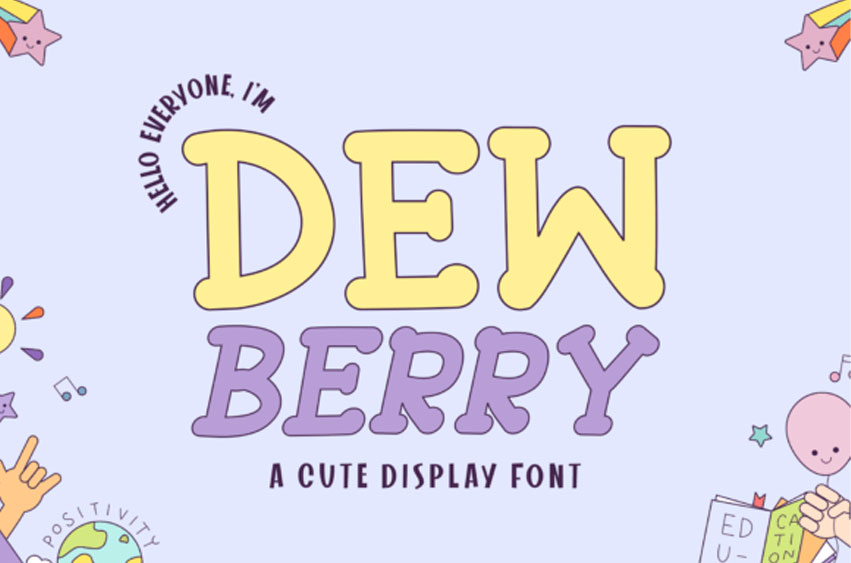
Dewberry Font
Dewberry Font is an enchantingly simple display font characterized by its gossamer-thin, delicate characters that exude charm and whimsy. Dewberry is on offer in a regular or italic style, making it your go-to font for crafting an array of delightful designs – think children’s literature, heartfelt greeting cards, engaging branding, or captivating social media content.
Gift your projects a touch of elegance paired with a delightful twist of sweetness, courtesy of Dewberry’s clean yet spirited aesthetic.